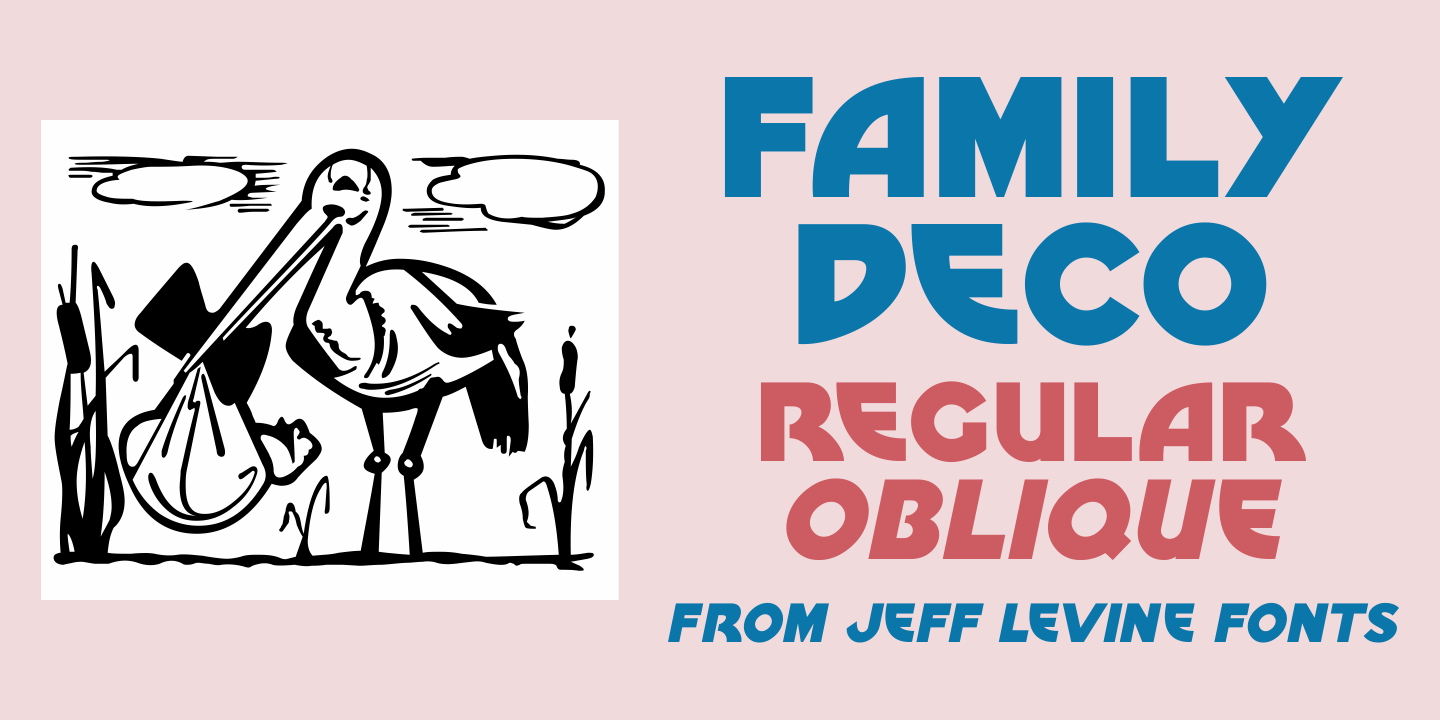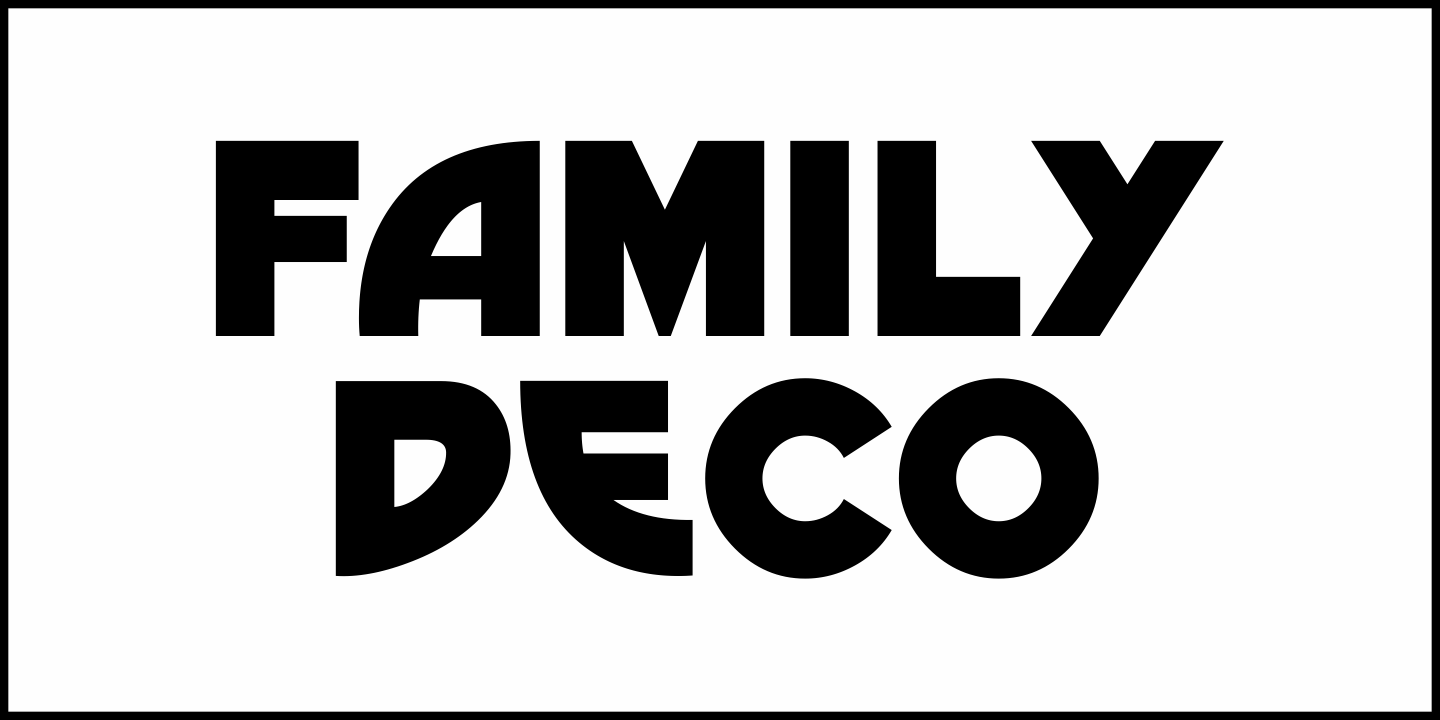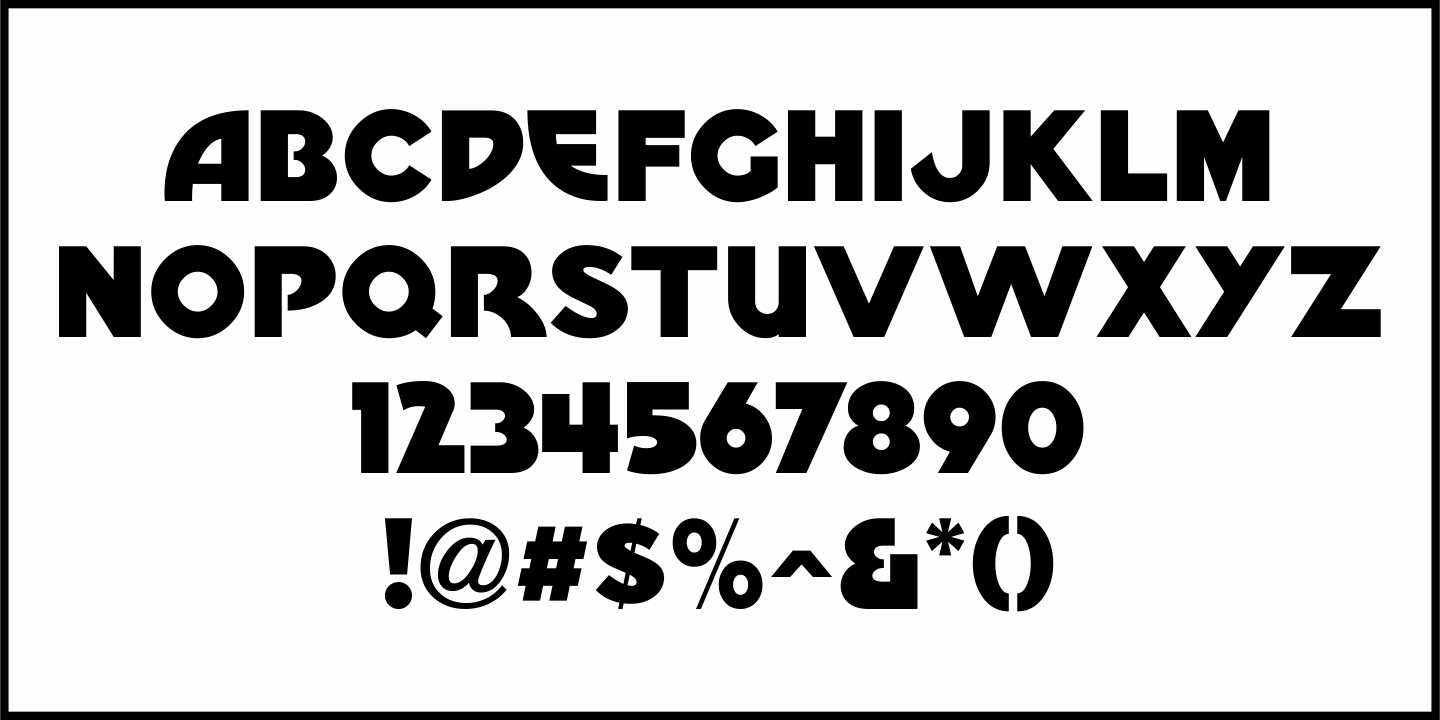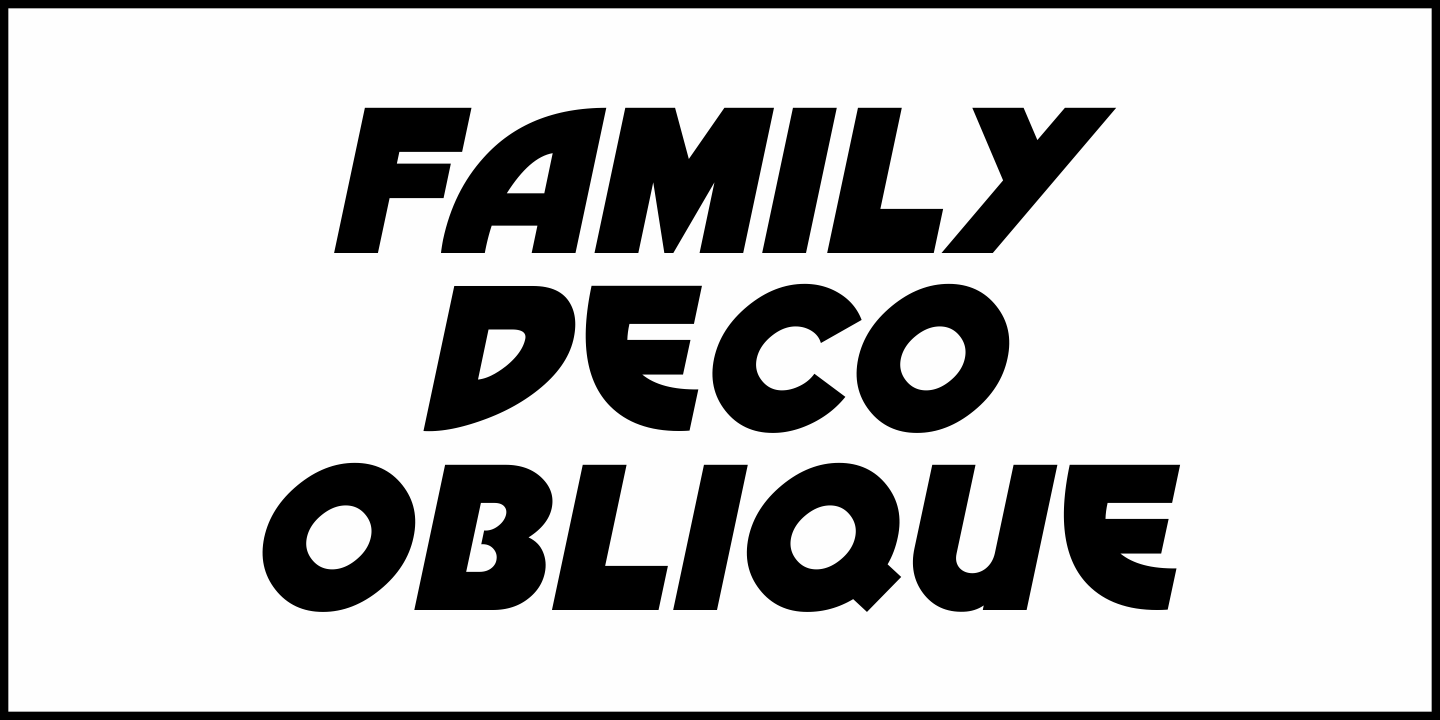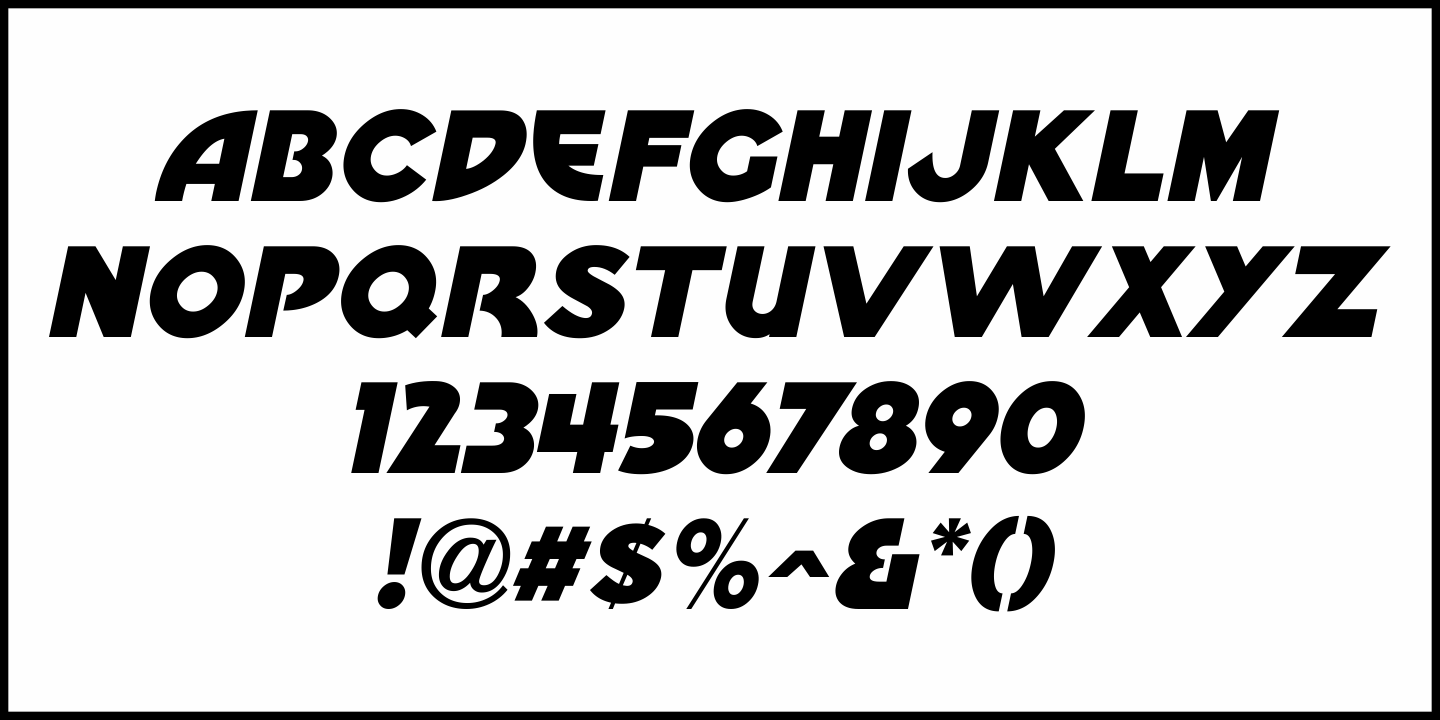
Family Deco
Family Deco JNL was inspired by the bold Art Deco hand lettering of the movie credits for the 1936 Laurel and Hardy comedy “Our Relations”, and is available in both regular and oblique versions.